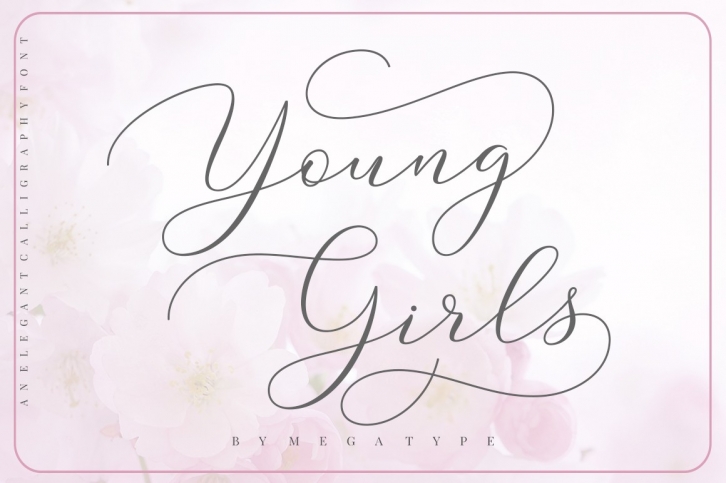
Young Girls Script is a beautiful font that was designed by MegaType. It's a great choice for designers and creatives who need such a font. It was released on August 16, 2018 and the file size is 15.71 MB. Young Girls Script may give a more youthful, expressive and casual look to your project. It is a very beautiful, refined, elegant, and high-quality font.